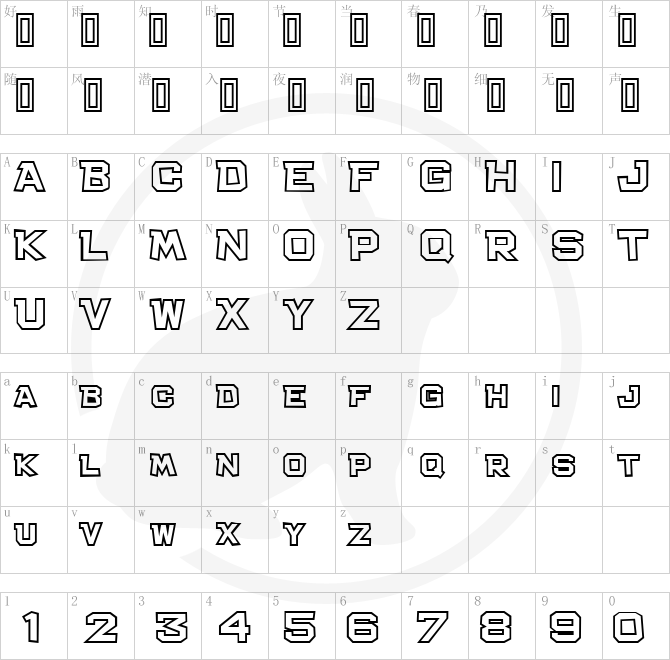
- Font Name:Bachelor Pad Outline JL
Bachelor-Pad-Outline-JL.ttf is a very beautiful artistic font, Bachelor-Pad-Outline-JL.ttf is widely used in the design and printing of various books and pictures,Bachelor-Pad-Outline-JL.ttf has a strong visual impact,Bachelor-Pad-Outline-JL.ttf is a commonly used font in newspapers, magazines and books, and is used in posters, e-commerce Poster design, store design, logo design, font design and other fields.Bachelor-Pad-Outline-JL.